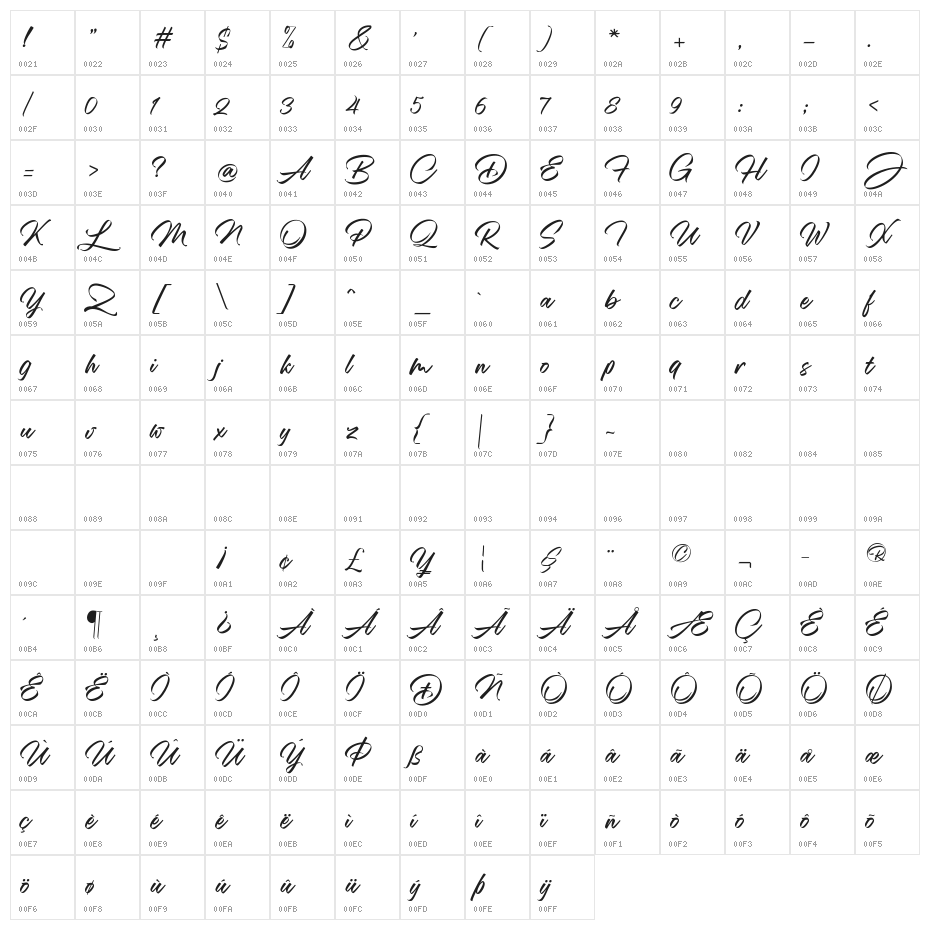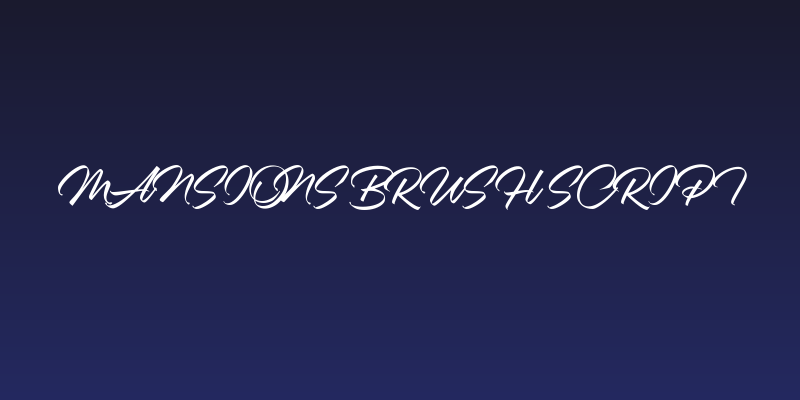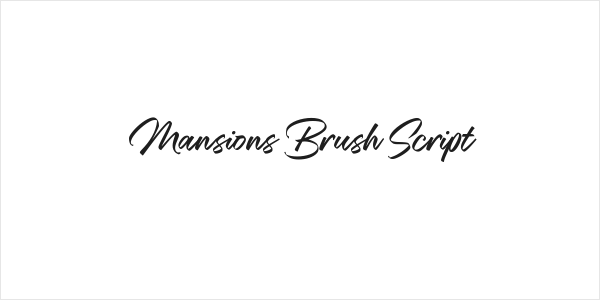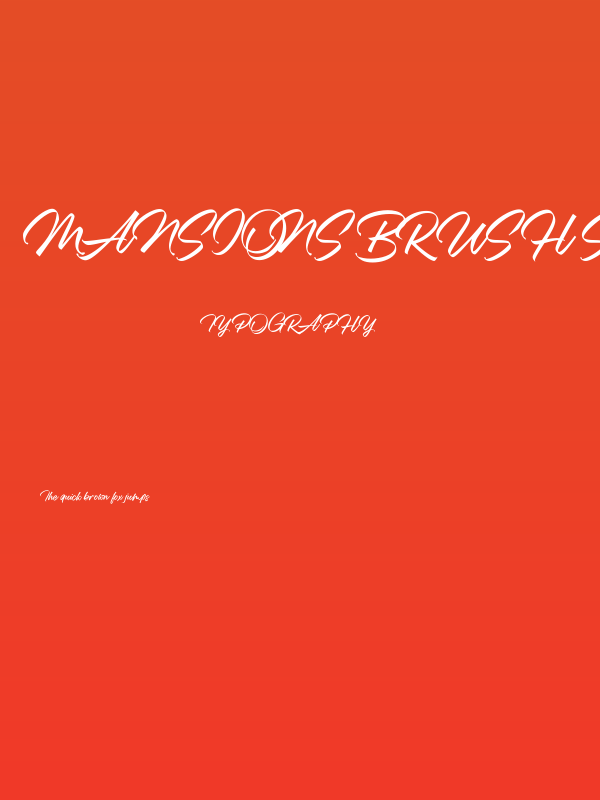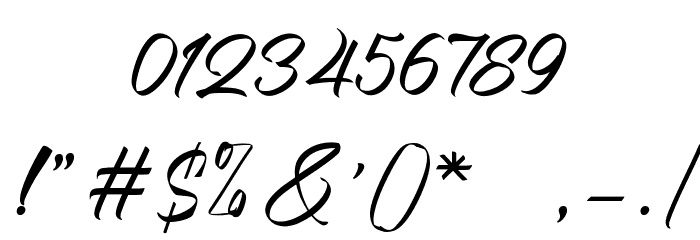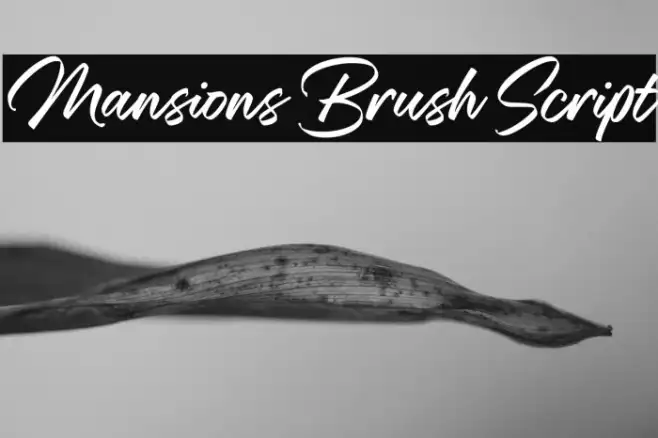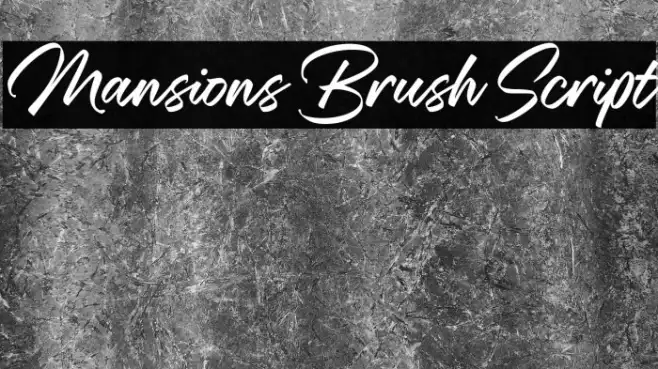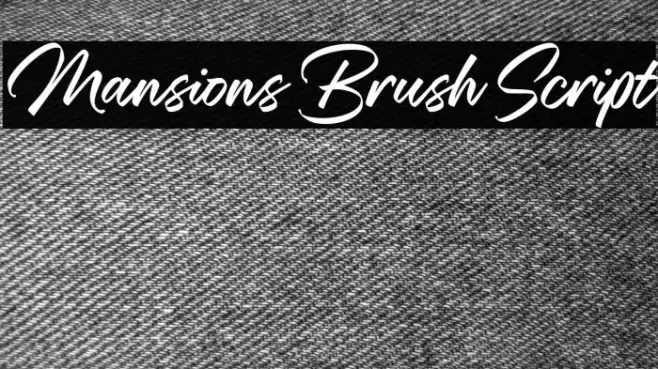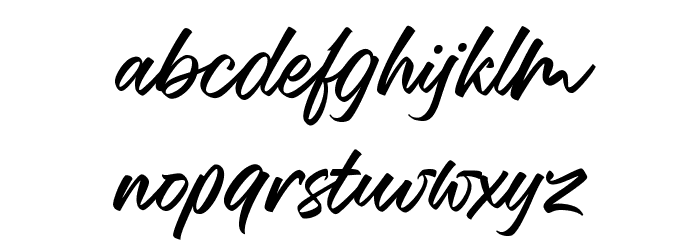
Mansions Brush Script Font
Mansions Brush Script Description
This font exudes a dynamic and fluid style, reminiscent of brush strokes with a lively and energetic flow. The uppercase letters are bold and sweeping, while the lowercase letters maintain a consistent rhythm, offering a sense of movement and grace. The numerals and special characters are crafted with the same attention to detail, ensuring a cohesive look throughout. The overall design is both elegant and expressive, making it suitable for creative and artistic projects. Its script nature provides a personal touch, ideal for conveying warmth and creativity.
| Proposed Projects | Ideal for branding, invitations, greeting cards, and artistic projects that require a personal and creative touch. |